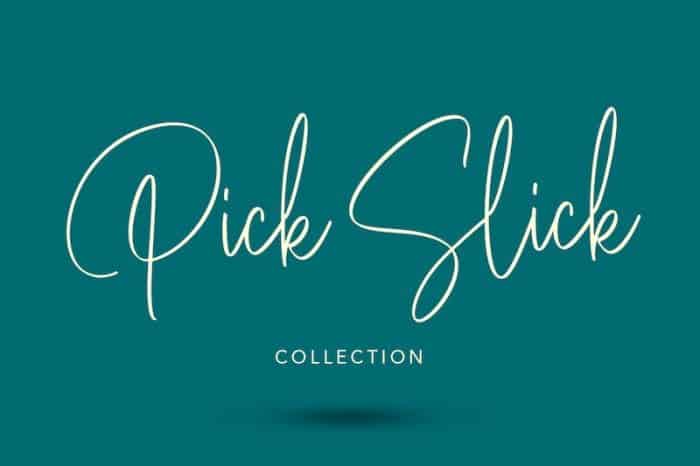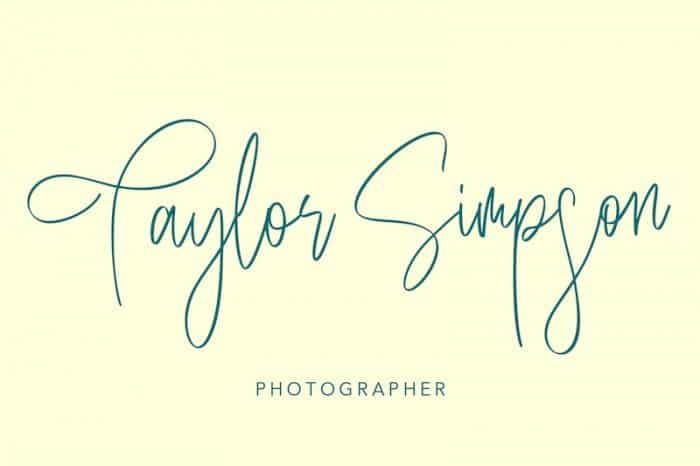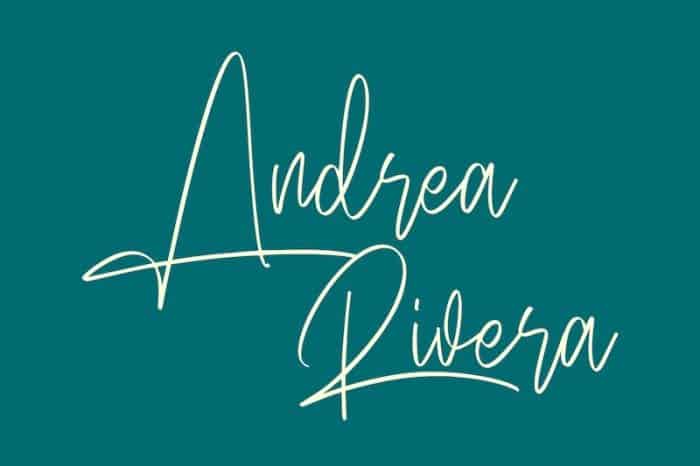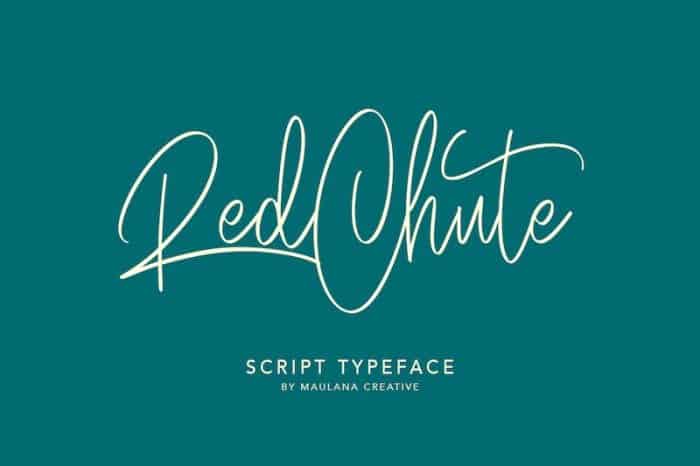
Red Chute Handwritten Font
Introducing Red Chute Handwritten Font, a signature in a modern script style a great distance away. This font is made with a brush pen for perfect handwriting. It’s designed and shared by Maulana Creative. Silver Sands is available with an slant version, this font has a unique character with the letters are not too close together. make the font look more beautiful.
Red Chute t can be used for various projects such as stationery invitations, social media, logos, weddings, branding, graphic design to support the project you want to work on.